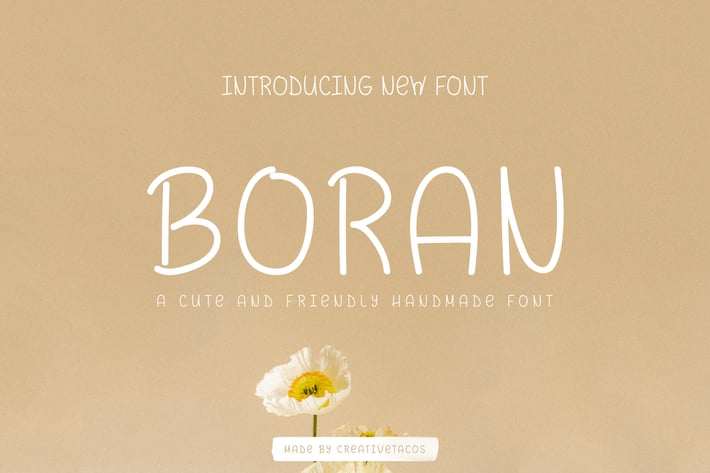
Boran Handmade Font
Say hello to Boran a cute, friendly, and whimsical handmade font featuring a lovely style that has the potential to elevate any creation. It contains uppercase letters, lowercase letters, numbers, punctuation, and symbols and supports multilingualism.
Boran font is excellent for various projects like packaging, presentations, logo, headlines, lettering, posters, branding, quotes, titles, note-making, magazine headings, web layouts, advertising, invitations, packaging design, kid's projects, books, and any creative project you can imagine.
Boran Font Features:
- Uppercase Letters
- Lowercase Letters
- Support Multilingual